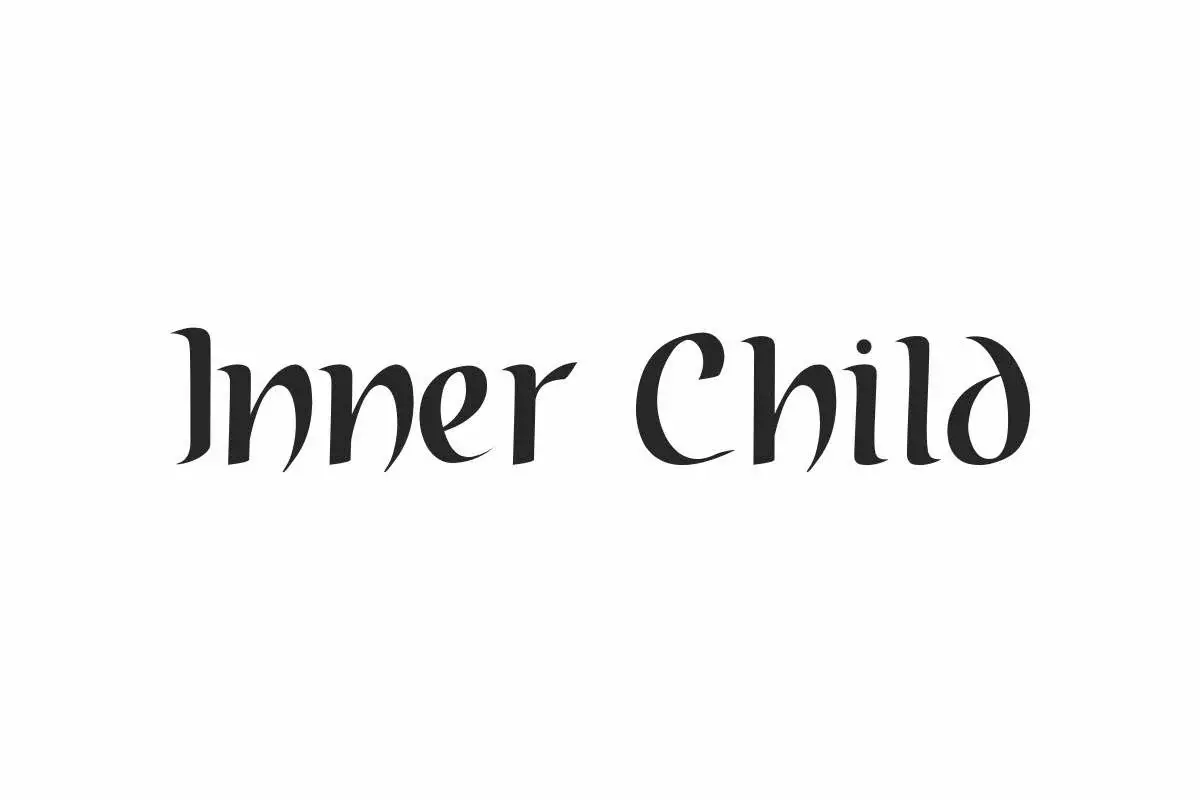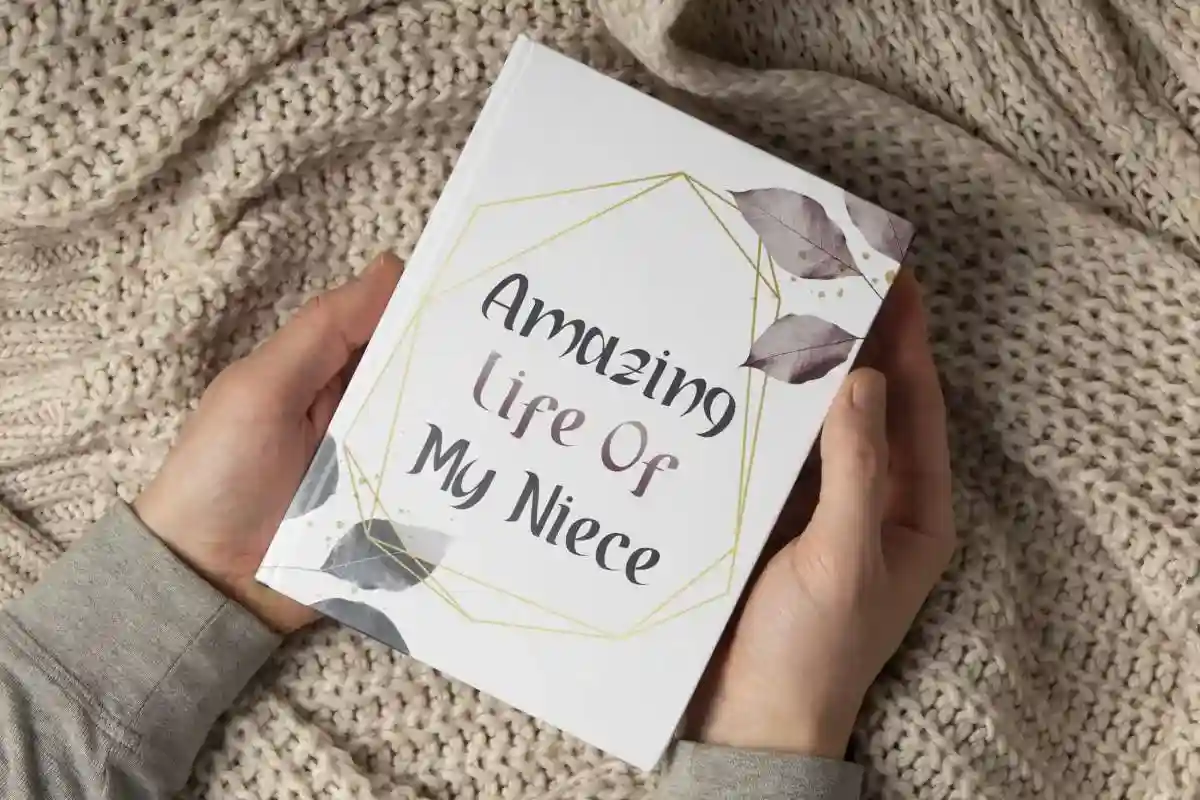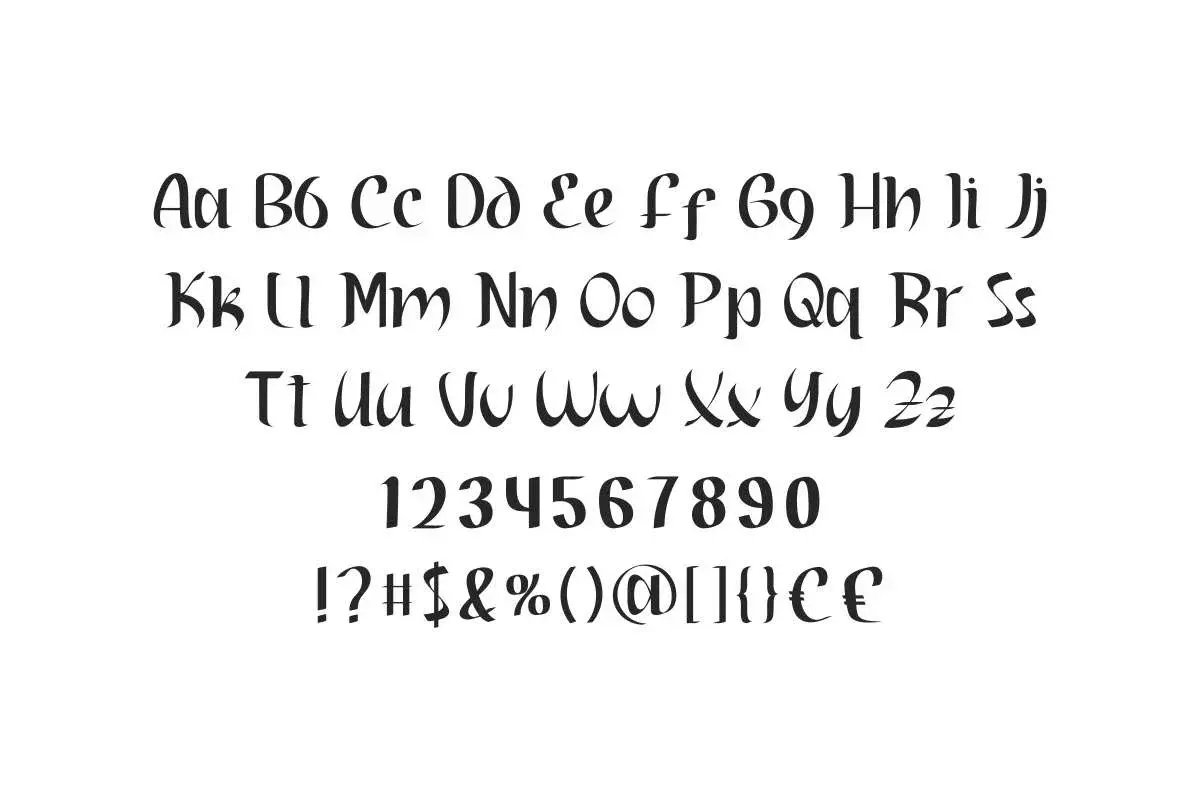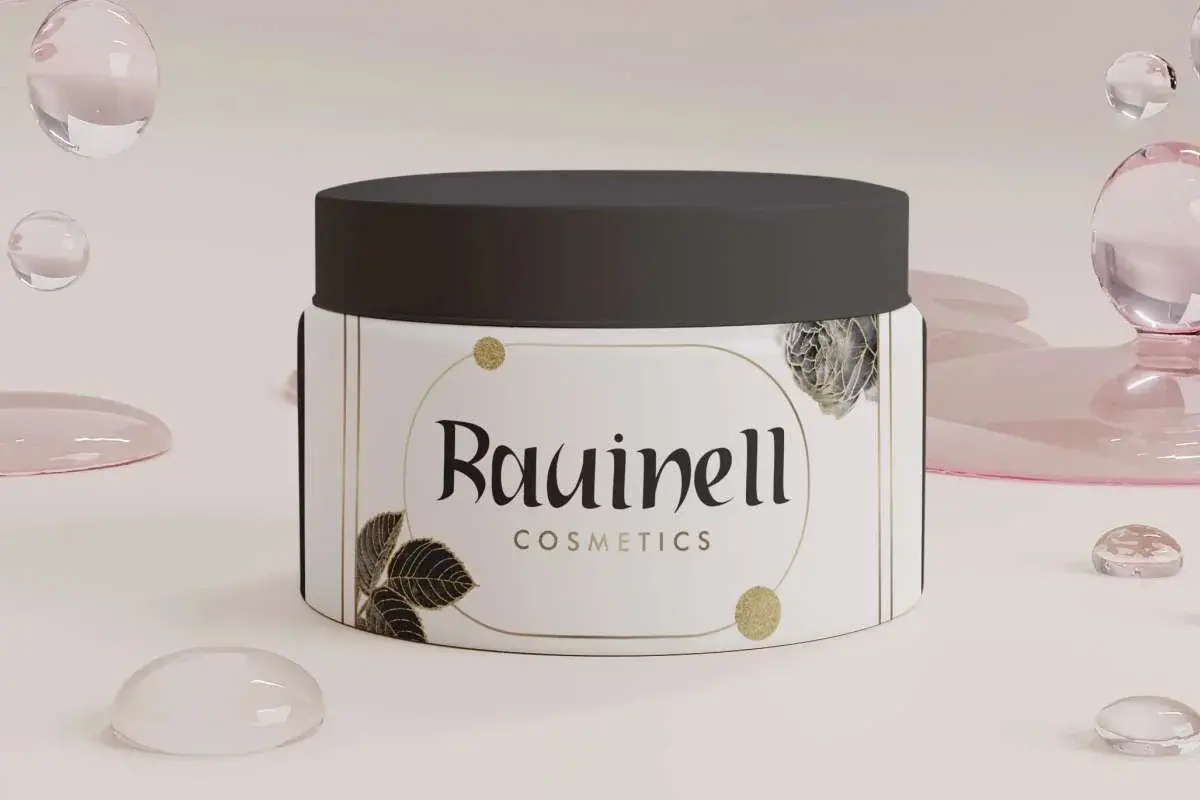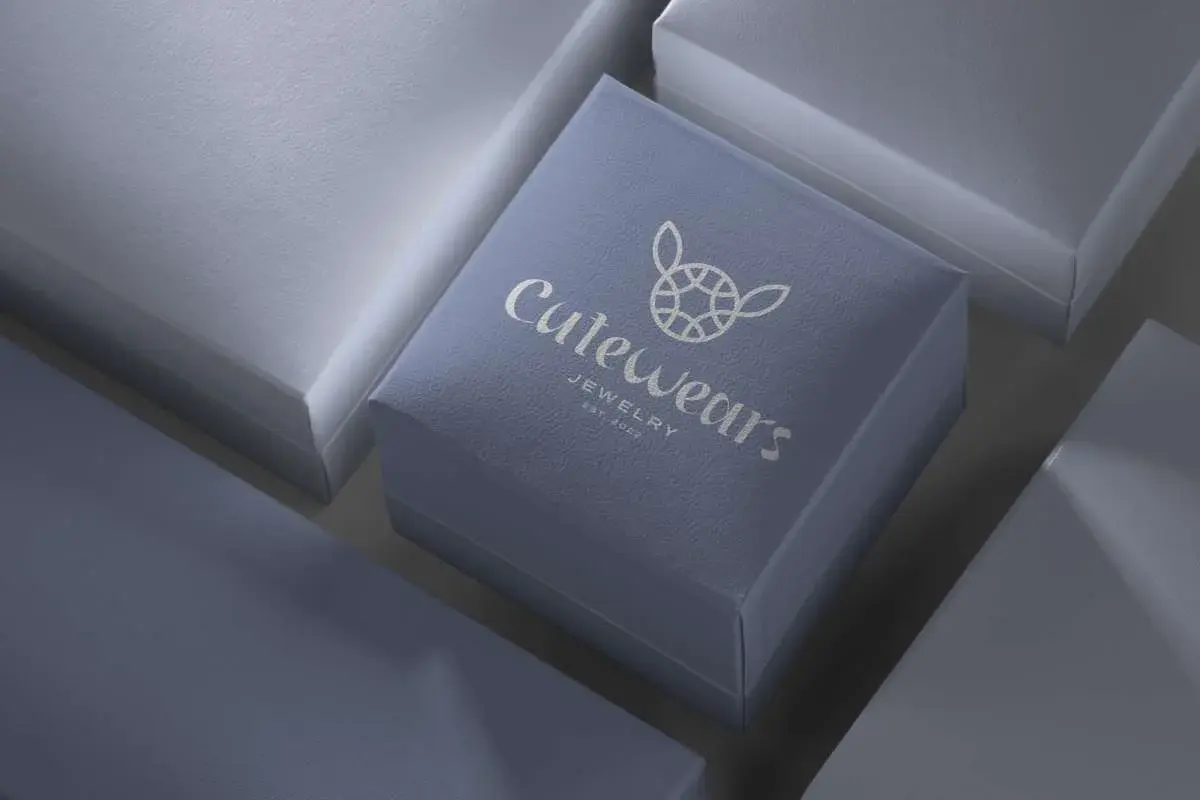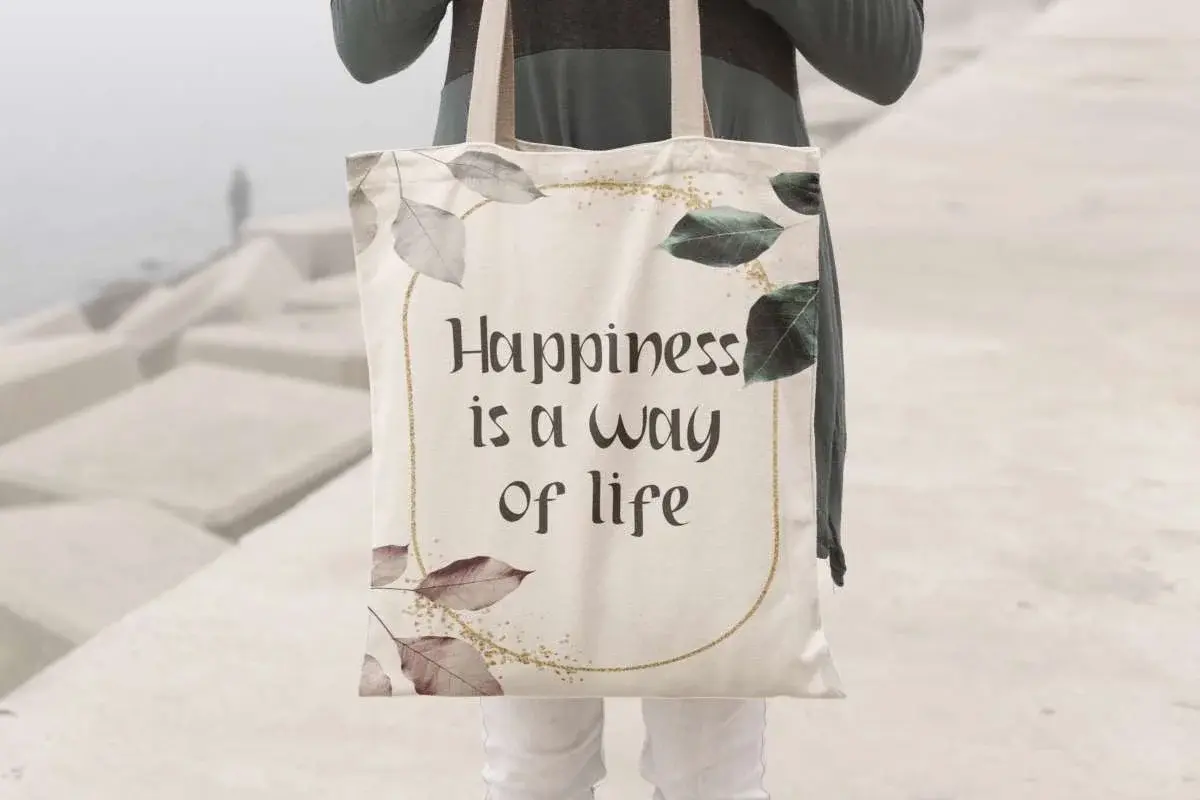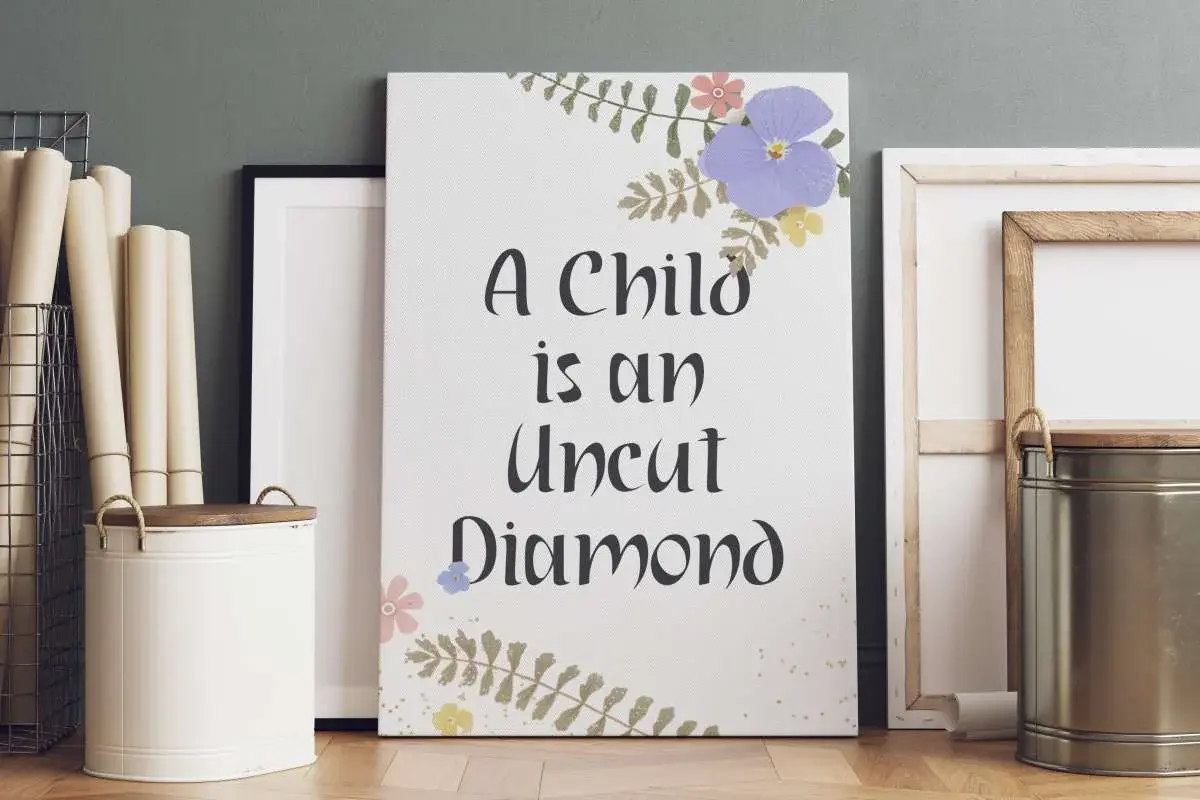
Inner Child Font is a unique and stylish display font with a modern look that has its own charm. Use this font for beauty product, box jewelry, fashion, header, quote art, signage, etc.
Inner Child Font is a stylish display font, created by NihStudio. This font has bold lines that will make your writing easy to read and sharpen your perfect design. It will be suitable for industries such as, author, boutique, cosmetic, fashion, jewelry, publishing, and more!
Inner Child Font will make for an awesome design! There are various projects you can create using this font, including : box jewelry, catalog, cover, header, packaging design, quote art, screen printing, signage, label, etc.
Inner Child Font comes with full set of Uppercase and Lowercase Basic Characters that are similar but not the same, Number, Punctuation and Symbol, and also supports multilingual characters. Ready to use both on Windows machine or Mac with simple installations. It’s tested to work well in the Adobe Apps (Illustrator, Adobe InDesign, Adobe Photoshop) CorelDraw, and others. PUA Encode Characters means you can access all the glyphs and other characters easily – Fully accessible without additional design software.